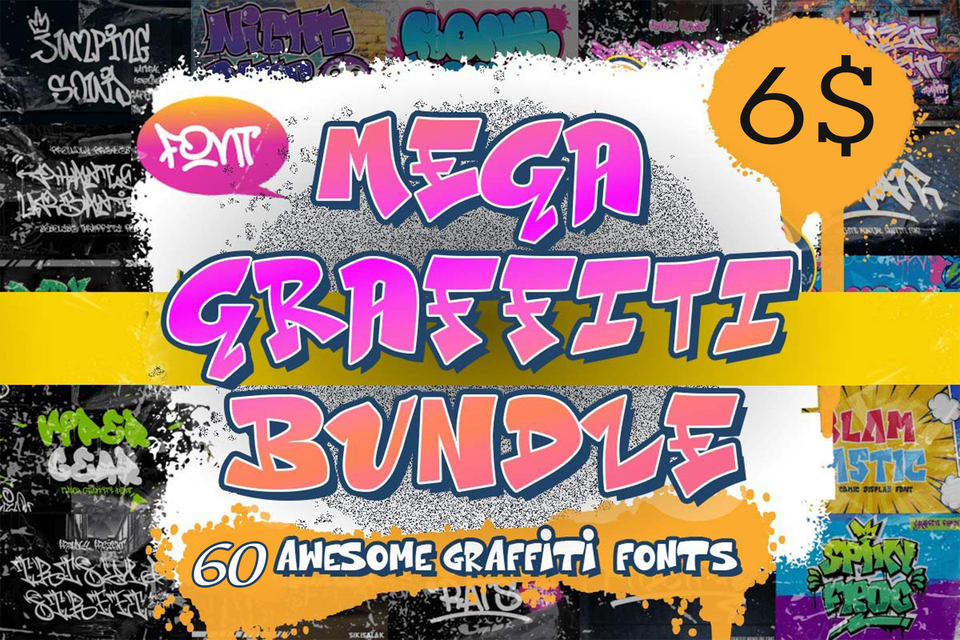
60 Graffiti Fonts, Urban wall street art
Discover 60 unique graffiti fonts inspired by urban street art, featuring streetwear-style letters and handstyle designs. Available in both OTF and TTF formats, perfect for adding a bold, artistic touch to your projects.